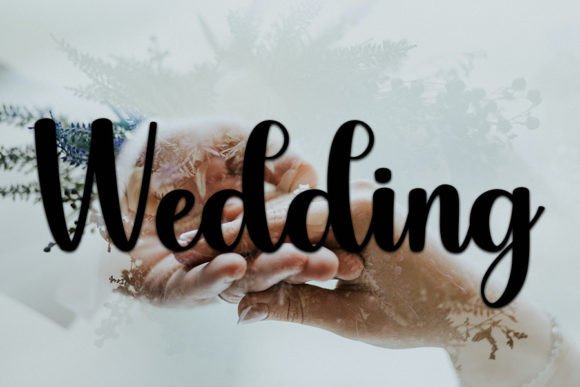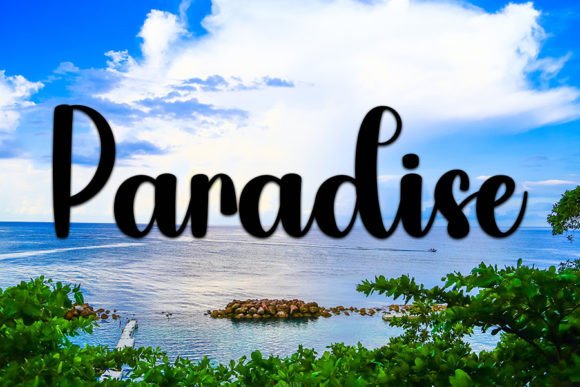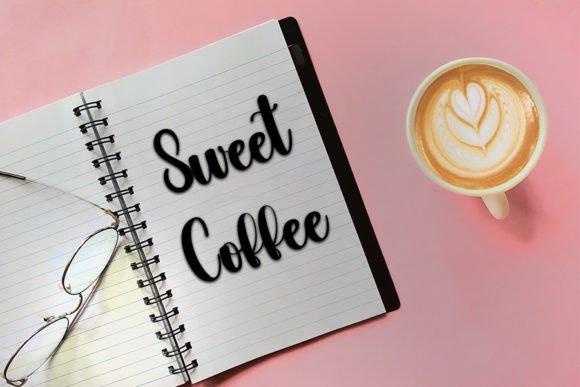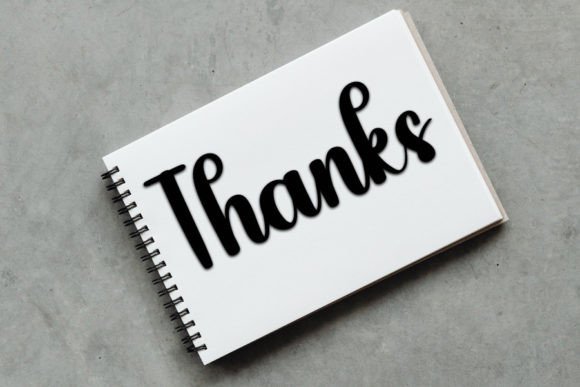
Introduction to Puding Font
Have you ever stumbled upon a font that just makes your design project feel complete? For me, that moment was when I discovered the enchanting Puding Font. Its elegant touch and distinct style made me feel like I’d finally found the missing piece of the puzzle. Whether you’re working on a branding project or a creative campaign, this beautiful handwritten font is sure to elevate your designs to the next level.
So, what makes the Puding Font so special? Let’s dive in and explore its unique features and why it’s become a favorite among designers.
Key Features of Puding Font
- Puding Font is a high-quality design resource ideal for creative projects.
- Its unique characteristics, such as its modern and elegant style, make it an excellent choice for designers looking to add a touch of sophistication to their creative project.
Honest Review: Puding Font
As a designer, I’m always on the lookout for high-quality fonts that can elevate my creative projects. I recently stumbled upon the Puding Font, and I’m excited to share my thoughts on this design resource.
One thing that stands out about the Puding Font is its sleek and modern design. The font is incredibly versatile, making it suitable for a wide range of creative projects, from digital displays to print materials.
Here are some things that work well with the Puding Font:
- ✨ High-quality design that’s perfect for modern projects
- ⚠️ Limited font styles and weights, which may limit its versatility for some projects
- ⚠️ Not ideal for complex typography projects, as it may not offer enough customization options
Overall, the Puding Font is a solid choice for designers looking for a modern and easy-to-use font. While it may not offer the most extensive range of customization options, its high-quality design and free download make it a valuable addition to any design resource library.
The Puding Font is ideal for creating eye-catching headings, titles, and logos. It’s also great for adding a touch of elegance to business cards, flyers, and brochures.